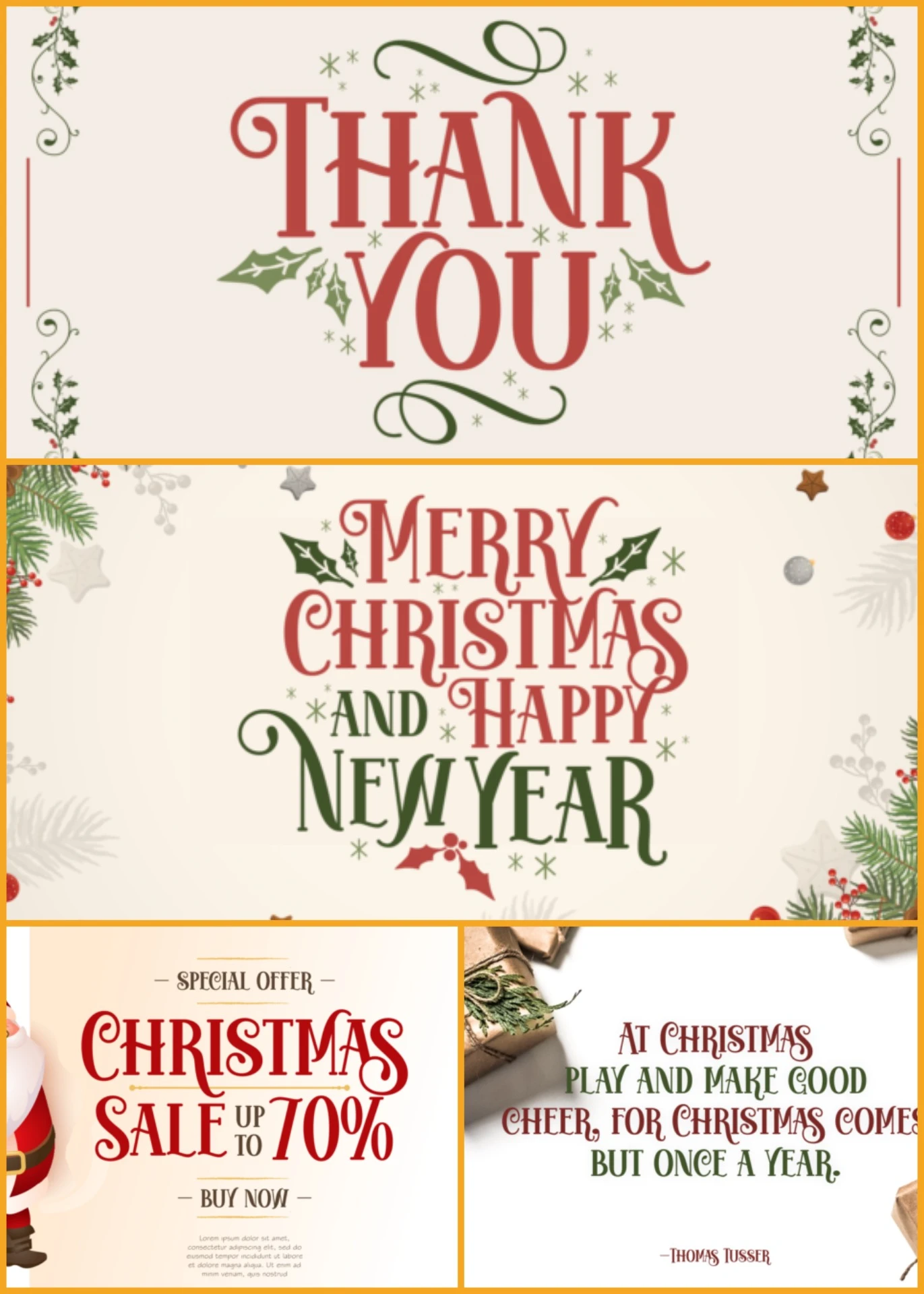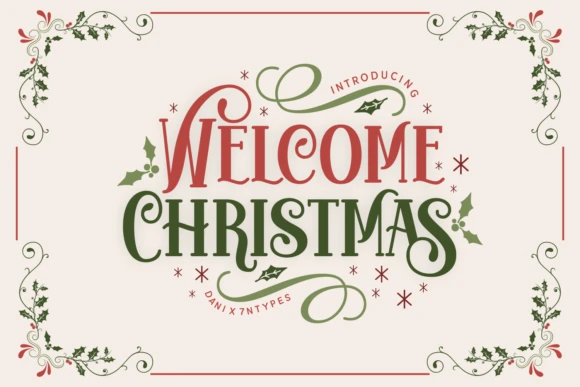
Add warmth and festive spirit to your designs with the Welcome Christmas Font, a joyful and elegant display typeface crafted to capture the magic of the season. Its classic serif details and playful swashes create a timeless Christmas feel, perfect for holiday cards, invitations, banners, crafts, packaging, and home décor projects.
The Welcome Christmas Font blends decorative charm with professional versatility, making it ideal for both digital and print designs. Whether you’re designing for Christmas parties, festive branding, or winter campaigns, this typeface adds a cheerful yet refined touch that stands out.